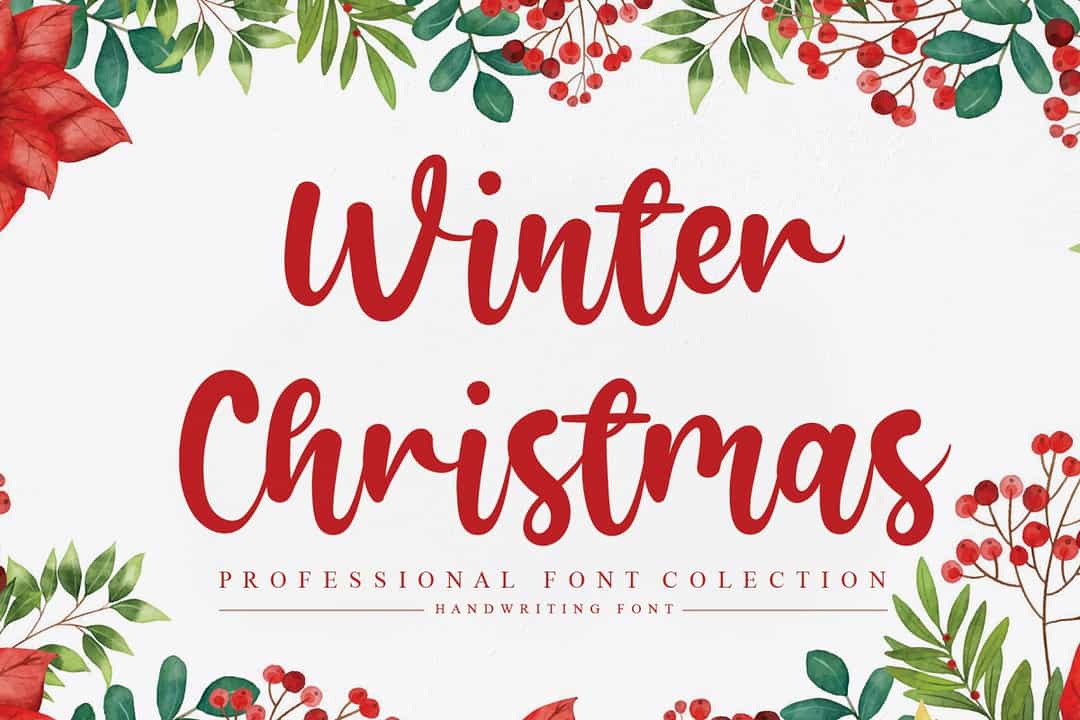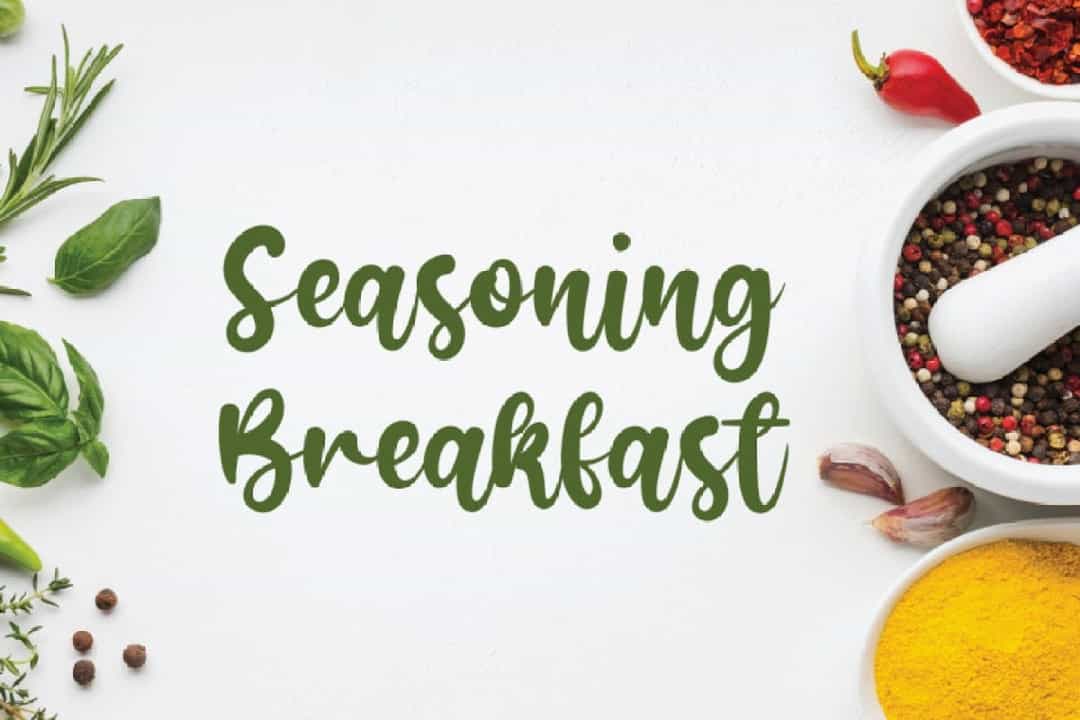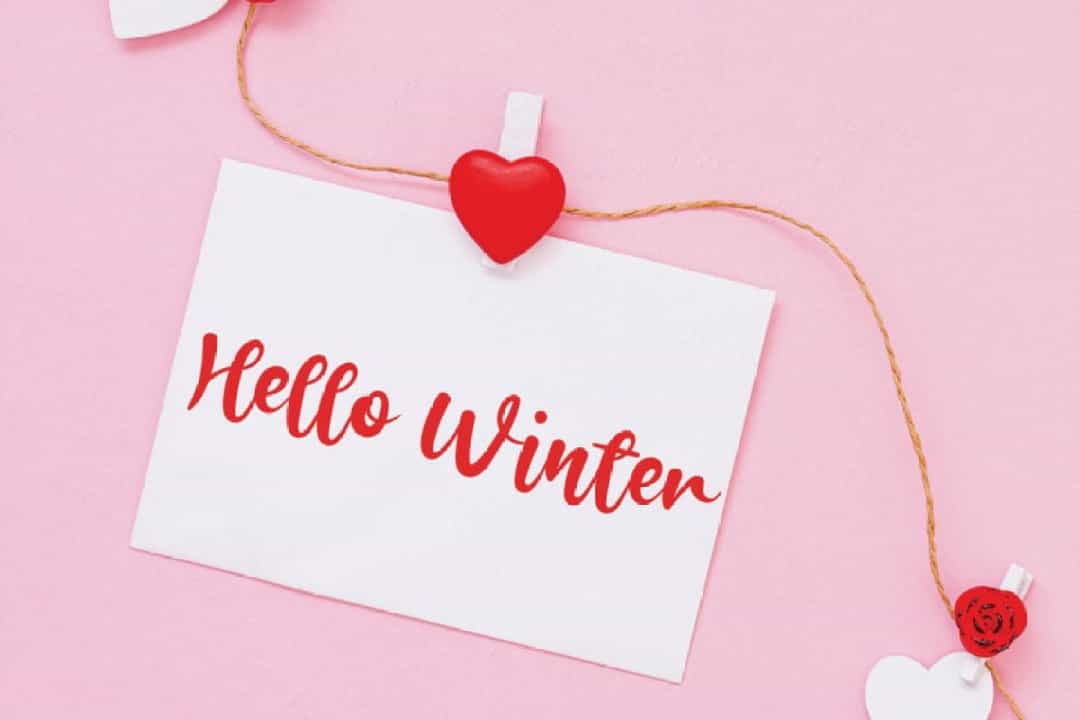
Discover Winter Christmas Font, part of the Handwritten Script Christmas Personal collection—a versatile and unique font perfect for adding a personal touch to your projects. Download it for free and enjoy crafting designs with style, from invitations to social media posts. This font is available exclusively for personal use, giving you the freedom to create without limits. Unlock your creativity with Winter Christmas Font today!
Winter Christmas has a handwritten style that will make your designs pop and take your projects to the next level, you’ll love it! Our products have been developed taking into account this font to make sure that you get the best from us.